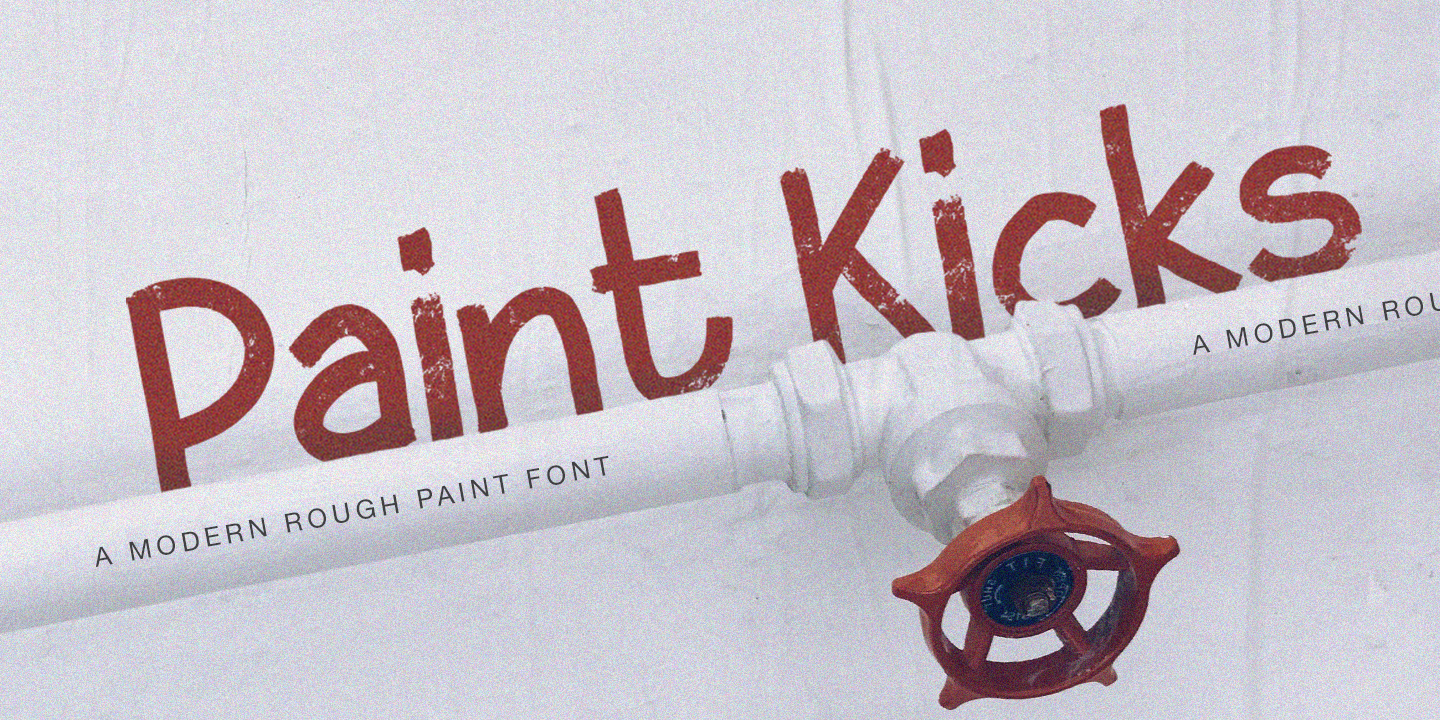
Paint Kicks Font is perfect for street art galleries, urban graffiti festivals, custom sneaker design studios, creative art workshops, skateboarding culture branding, and edgy youth lifestyle campaigns. Its energetic character makes it ideal for street artists, sneaker customizers, urban culture brands, youth entertainment venues, and any application requiring dynamic typography that conveys artistic rebellion, creative energy, and the vibrant spirit of street culture and urban artistic expression.
Paint Kicks Font is exciting because it captures the explosive energy and creative rebellion of street art culture through dynamically splattered letterforms that reflect the spontaneous creativity and artistic passion found in urban artistic expression. Its paint-splashed proportions and street-inspired details evoke the adrenaline rush of creating unauthorized art and the satisfying impact of bold creative statements, making it perfect for brands celebrating artistic freedom and urban culture. The font's street character transforms communications into artistic declarations of creative independence.
Paint Kicks Font family includes artistically-energized weight variations typically featuring Regular, Medium, Bold, and Black options with splattered styling that maintains street art authenticity. The family often incorporates paint symbols, graffiti elements, and urban art characters designed for creative applications, providing designers with comprehensive tools for creating authentic, street art-focused typographic compositions.
When selecting urban street art typography solutions, Paint Kicks Font Free Download represents an exceptional choice for creative and youth culture projects. This dynamic typeface brings instant street art authenticity to any design, making it invaluable for urban artists, creative agencies, and youth brands celebrating street culture. Whether you're developing street art gallery branding, creating urban festival materials, or designing youth lifestyle campaigns, Paint Kicks Font provides the artistic energy and street authenticity essential for capturing urban creative spirit in today's street culture-influenced creative marketplace.